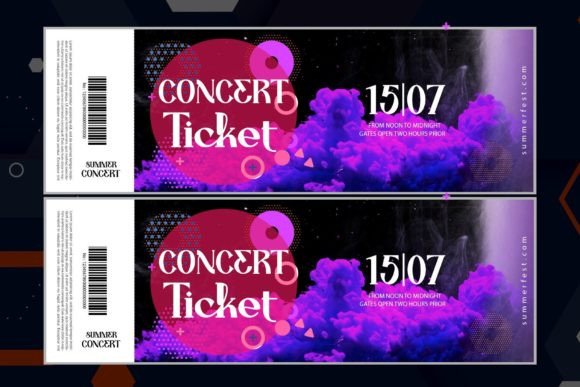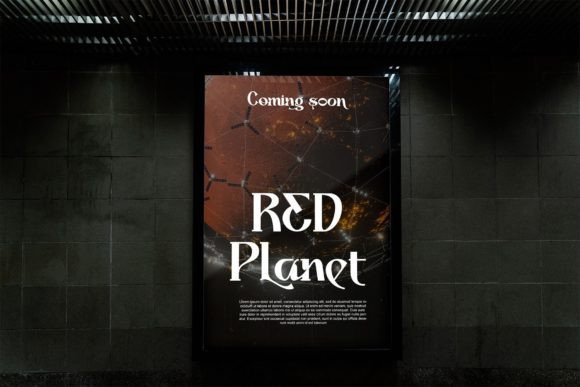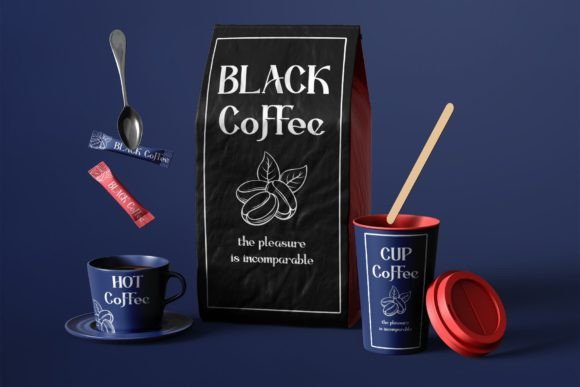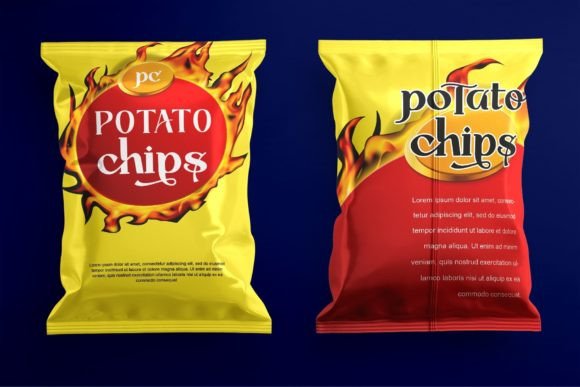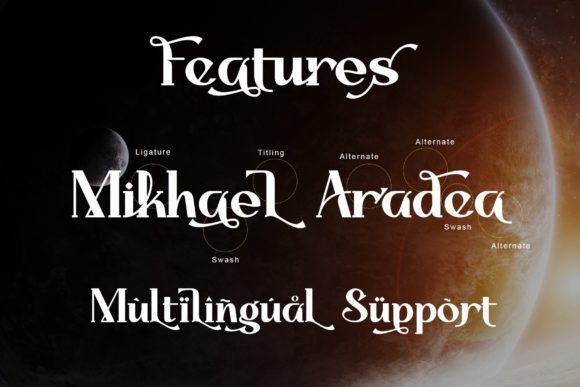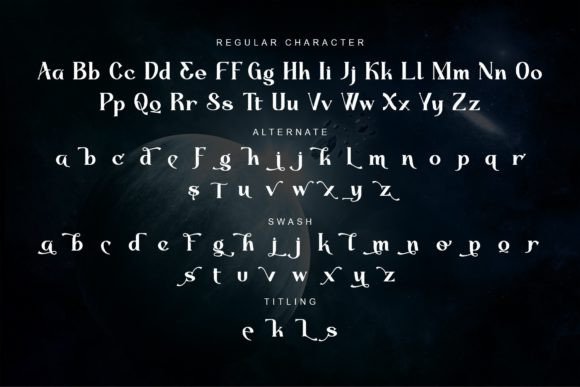
Introduction to Aringgo Font Font
Fonts play a crucial role in design, and the Aringgo Font font is a typeface that brings both character and versatility to any project. Whether you’re working on a branding project, a website, or a print design, the Aringgo Font font offers a unique style that can elevate your work.
Aringgo is a stylish and elegant serif font.
Neat and clean, it is perfect for luxury logos, branding, classy editorial design, magazines, packaging, posters, movies, cosmetic brands, fashion promotions, art gallery branding, and many more This font is PUA encoded, which means you can access all of the glyphs and swashes with ease.
Key Features of Aringgo Font Font
The Aringgo Font font is more than just a typeface – it’s a design tool that helps you communicate your message with style and clarity. Its unique character set and versatile design make it suitable for a wide range of applications, from elegant invitations to bold headlines.
With its carefully crafted letterforms and balanced proportions, the Aringgo Font font ensures readability and visual appeal across all mediums.
The Aringgo Font font stands out with its unique design, exceptional readability, and versatility across various design applications.